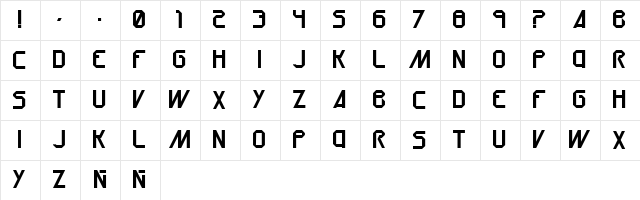
ORU ORU
Style: ORU
Foundry: GRAFIK INDUSTRIES LTD.
Designer: GRAFIK INDUSTRIES LTD.
Design Context for ORU
ORU is a composed and adaptable typeface that performs quietly and consistently across a wide range of design contexts.